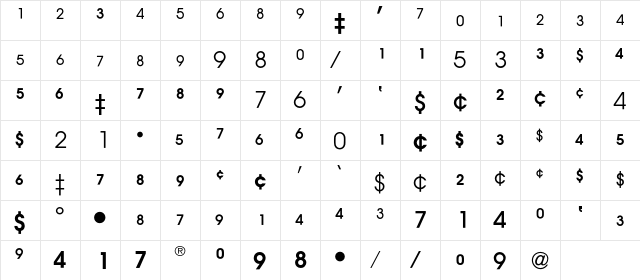
Avant Garde Fractions BQ Regular
Design Context for Avant Garde Fractions BQ Typeface
Avant Garde Fractions BQ is a composed and adaptable typeface that performs quietly and consistently across a wide range of design contexts.